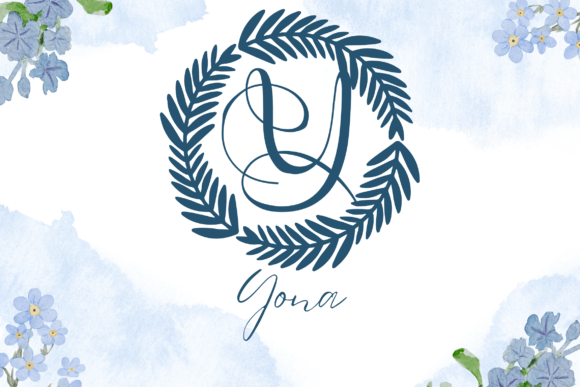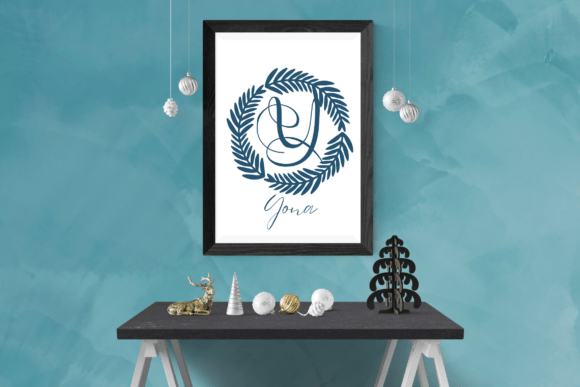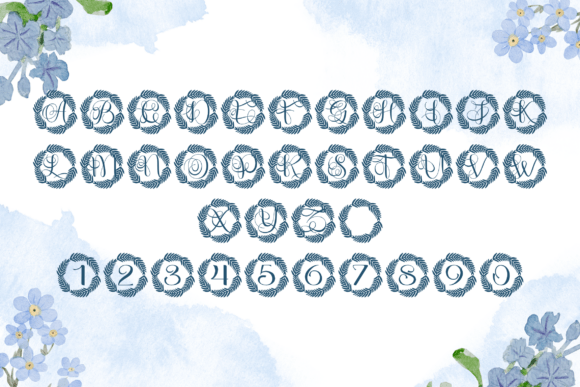
Introduction to Laurelienne Monogram Font
As a designer, you know that sometimes the perfect font can make all the difference in bringing your creative project to life. Imagine being able to turn simple initials into elegant, timeless emblems that exude a sense of luxury and sophistication. This is exactly what the Laurelienne Monogram Font offers – a unique and versatile design resource that can elevate your designs to the next level.
With its smooth, balanced strokes and open counters, the Laurelienne Monogram Font is perfect for a wide range of applications, from wedding suites and boutique logos to keepsake gifts, wax seals, stationery, and luxury packaging. And the best part? It’s available for free download, making it an invaluable addition to any designer’s toolkit.
Whether you’re working on a high-end branding project or a personal creative endeavor, the Laurelienne Monogram Font is a valuable asset that can add a touch of premium quality to your designs. With its high-quality design and transparent background, you can be sure that your work will look polished and refined, every time.
Key Features of Laurelienne Monogram Font
- Unique, elegant, and stylish design, perfect for adding a touch of sophistication to your project
Honest Review: Laurelienne Monogram Font
I recently had the chance to work with the Laurelienne Monogram Font, and I must say it’s a beautiful addition to any design project. The intricate details and elegant design make it perfect for creative projects that require a touch of sophistication.
- ✨ High-quality design that’s perfect for a variety of creative projects
- ✨ Transparent background, making it easy to use with any design element
- ⚠️ Limited font sizes available, which can be a challenge for larger text
- ⚠️ Not suitable for use in busy or cluttered designs, as the intricate details can get lost
Overall, I was impressed with the Laurelienne Monogram Font’s design and versatility. It’s a great resource for designers looking to add a touch of elegance to their projects. However, it may not be the best choice for every project, so be sure to consider its limitations before using it.
Some tips for getting the most out of the Laurelienne Monogram Font include experimenting with different font sizes and colors to create unique designs. Common use cases for the font include creating custom logos, monograms, and graphics for business cards, invitations, and other design projects.